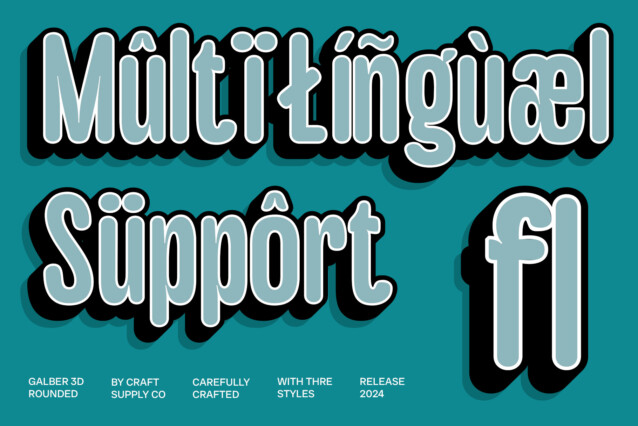
Galber Rounded 3D Font
Galber Rounded 3D Font is a modern sans-serif font that combines inktrap shapes, condensed forms, and rounded edges, all enhanced by a dynamic 3D effect. The inktrap design softens the corners, improving readability and adding a unique visual appeal.